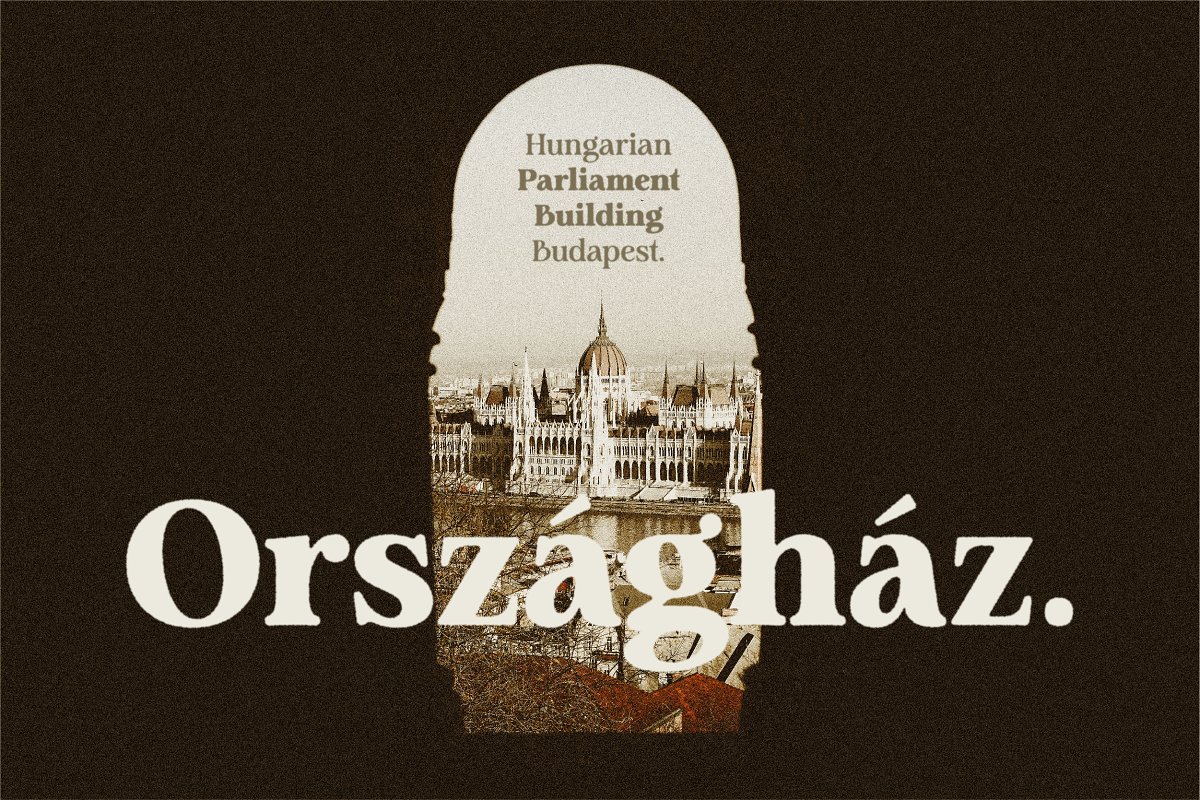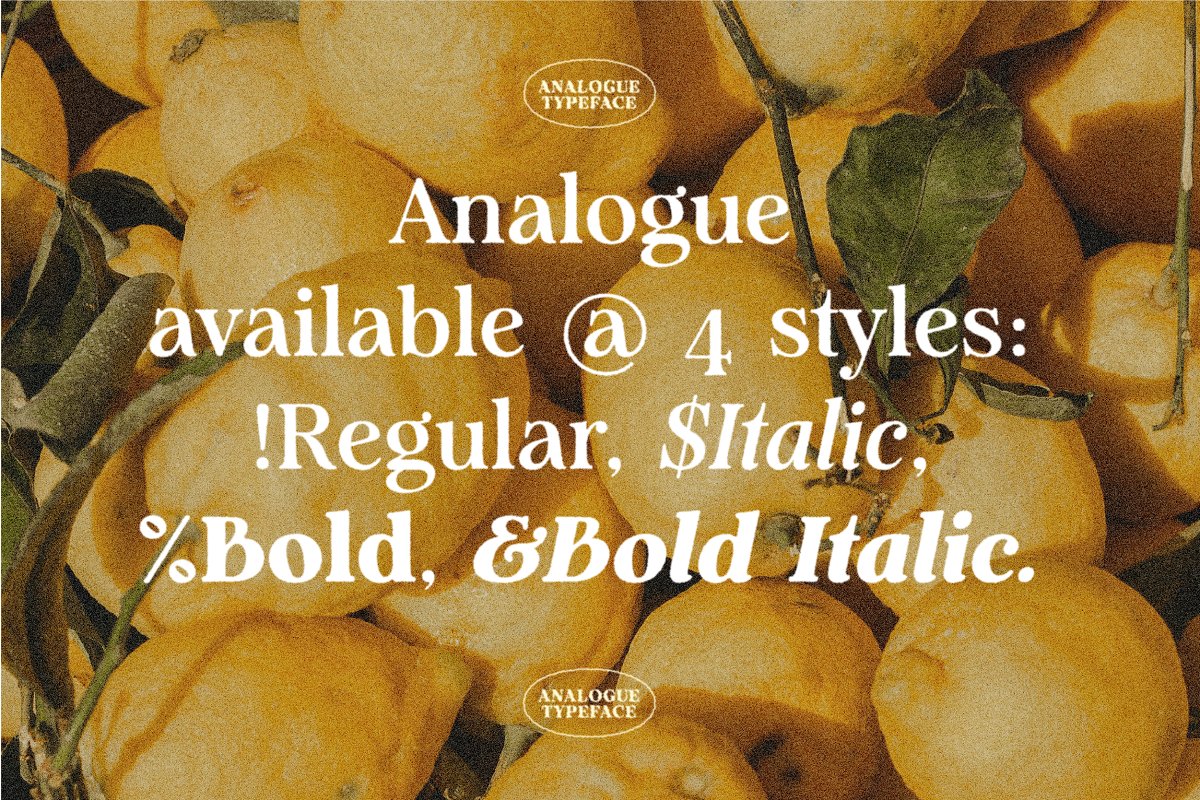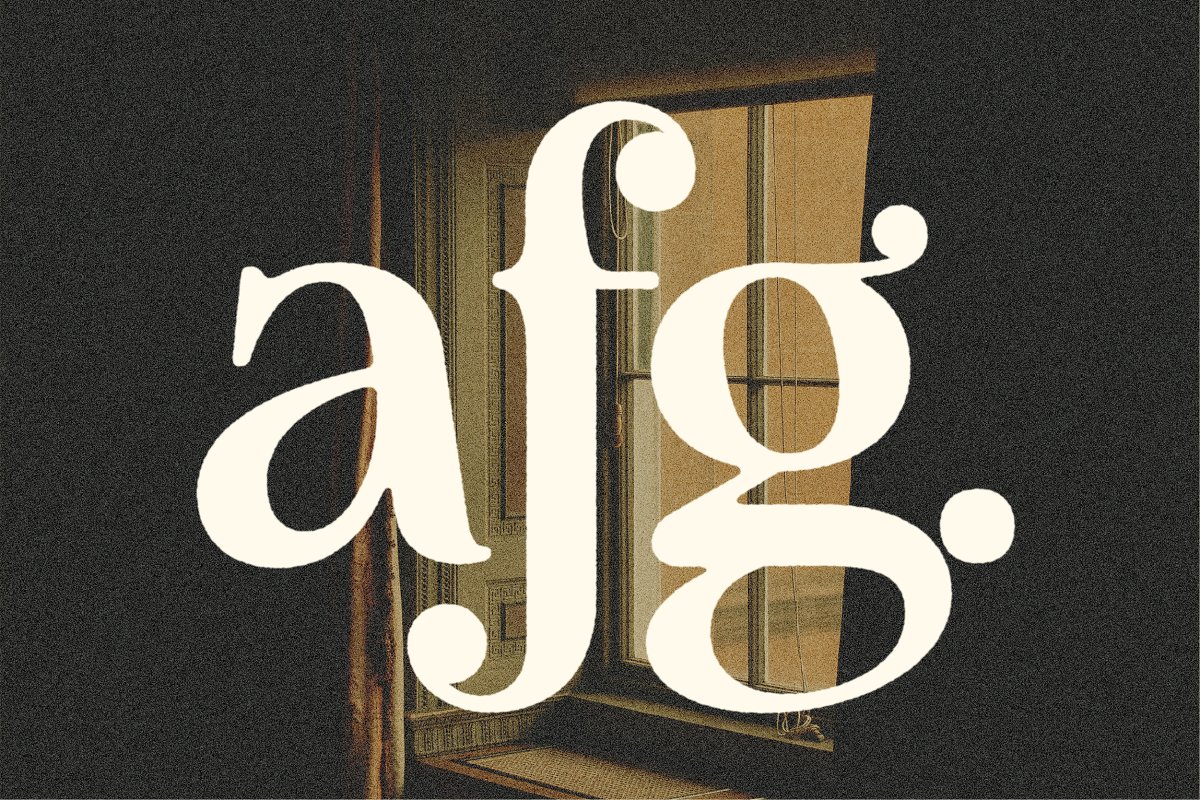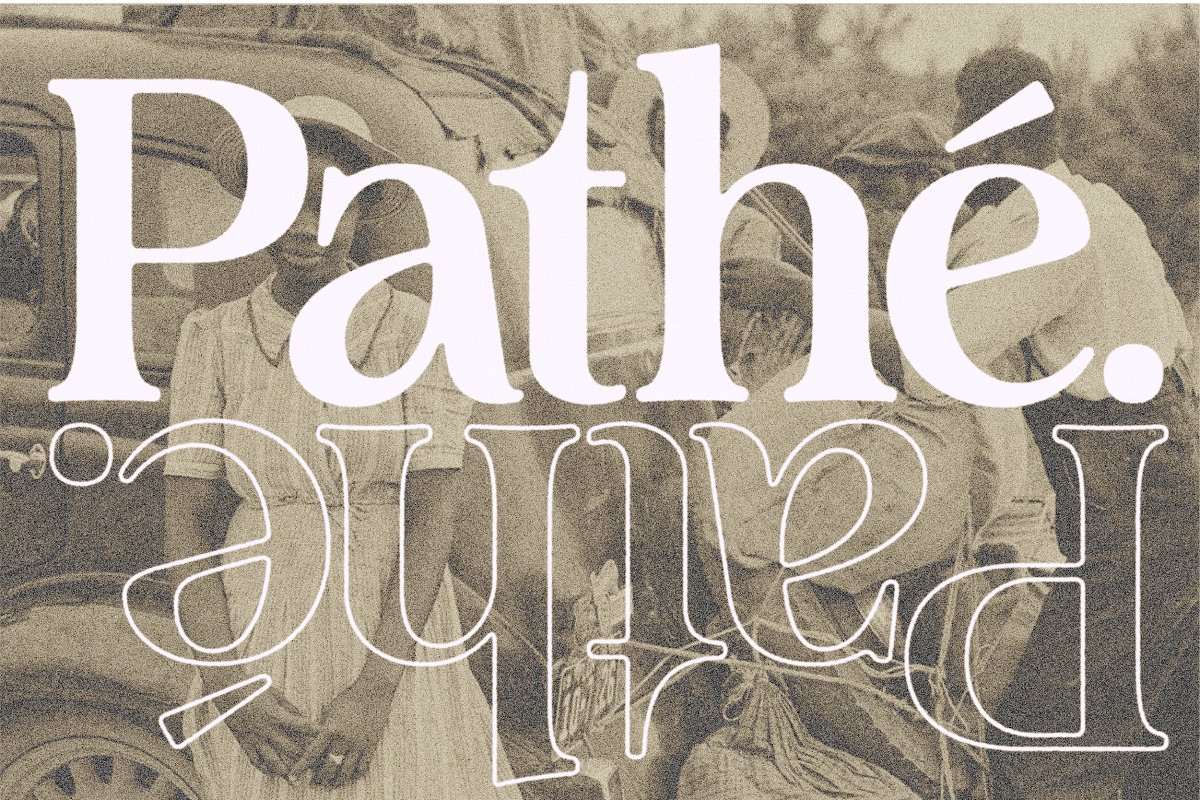
About the Analogue Humanist Retro Serif
Analogue is a retro serif with a humanist touch, With its good readability, Analogue is perfect for both displays as well as body text, Inspired by all the retro aesthetics making a comeback, Analogue is perfectly suitable for creating nostalgic yet still elegant designs such as logos, packaging, editorial, and more, A SUMMARY OF WHAT’S INCLUDED:HV Analogue Regular Font (